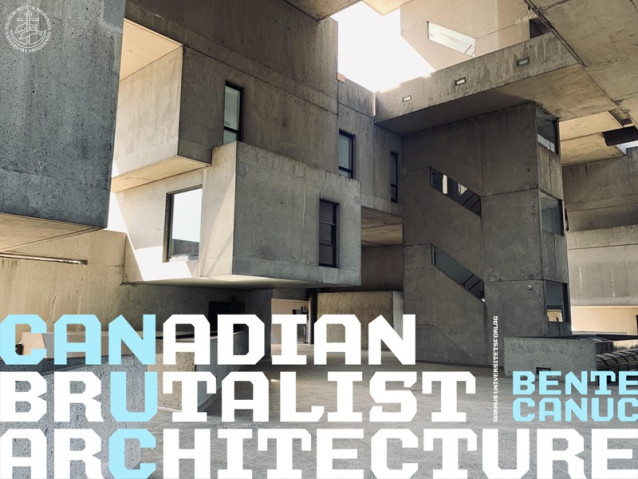
Boa Construktor Font
Boa Construktor Font: I saw a rear wing of an F2 car with the logo of Stokker on it a day ago on Formula 1 TV, and I liked the way it looked; huge, square and very bold. I looked up that logo on their website, but I thought it was a bit clumsy and clunky. So I decided to make a similar font, but better 🙂
I did not make a lower case because fonts like these are used in ALL CAPS anyway. The lower case does have some variations though.
Brutalist Boa Construktor can be used for construction and transport companies and the likes, but it also works for sports teams and simple logos.
Supported languages are Icelandic, Norwegian. Swedish, Finnish, Danish, Dutch, German, Czech, Polish, Welsh, Hungarian, Serbo-Croatian, Romanian, Turkish, Esperanto, French, Italian, Portuguese, Spanish, Maori, and yes: even English.